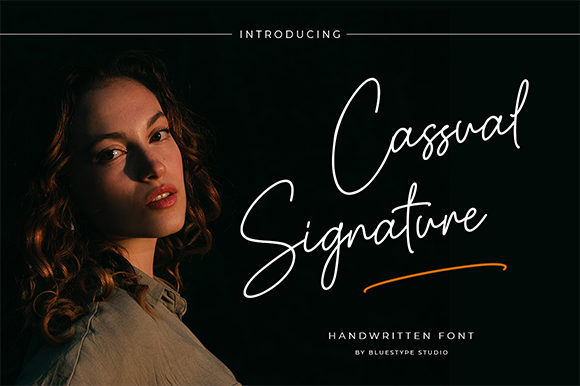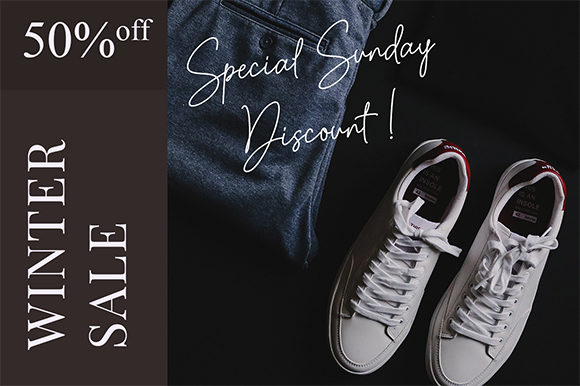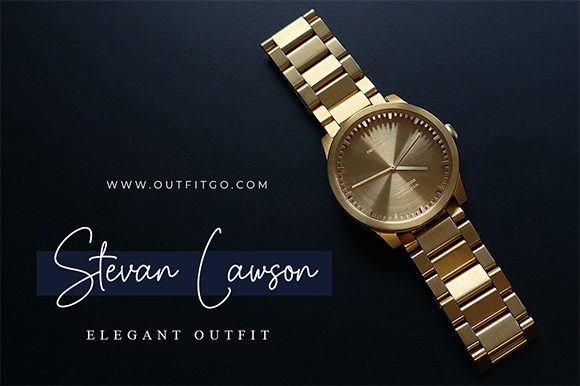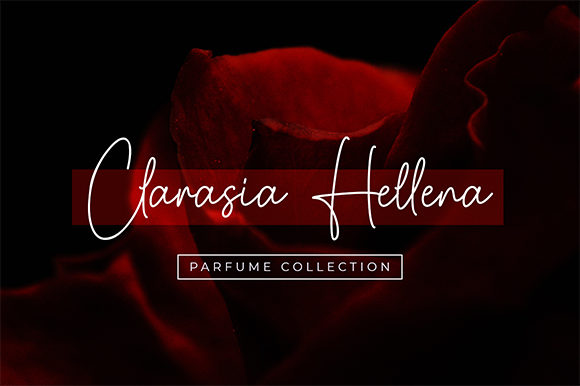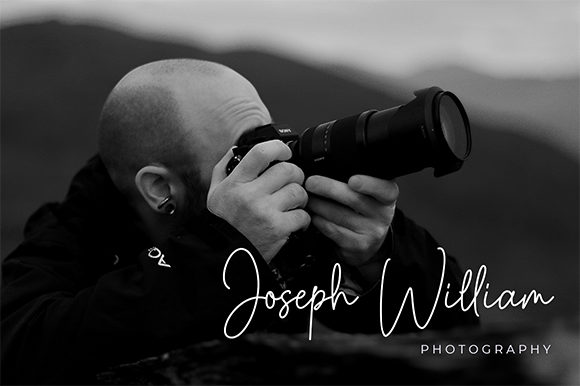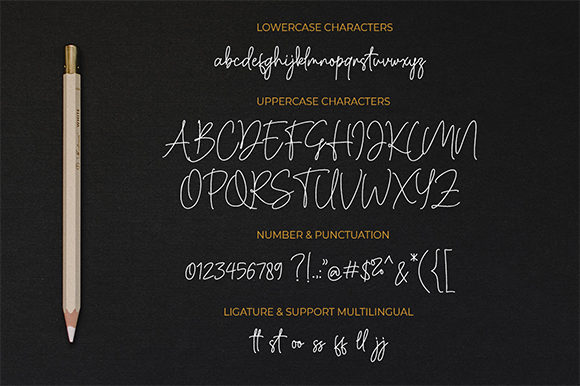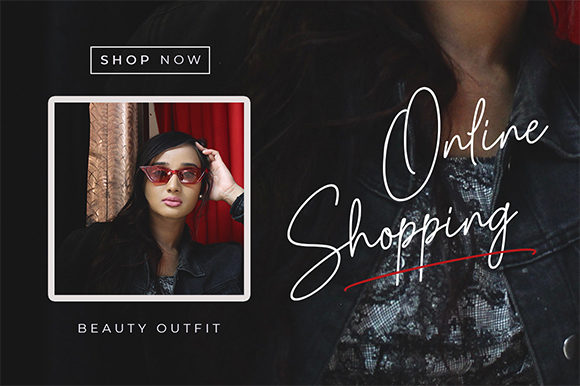
Cassual Signature Font
About Cassual Signature Font
Cassual Signature is a thin and delicate handwritten font. Cursive and beautiful, this font will become your favorite choice of font in no time.